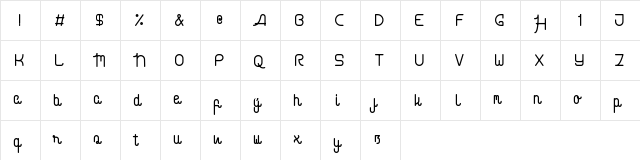
Cabello Script Regular
Design Context for Cabello Script Typeface
Cabello Script brings a calligraphic fluidity to the page — its connecting strokes and expressive curves give it an unmistakably human quality.